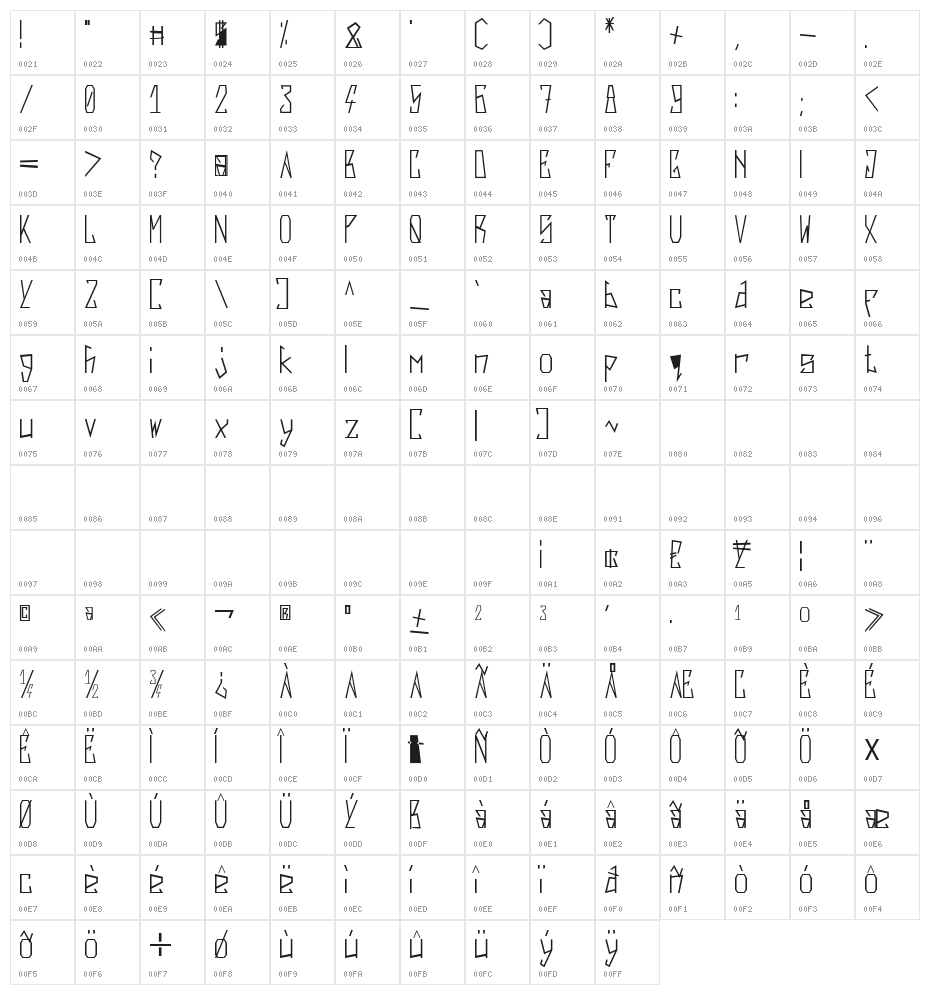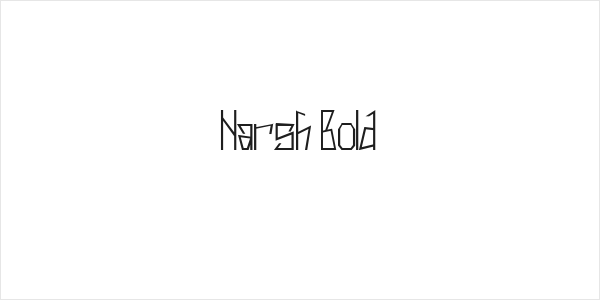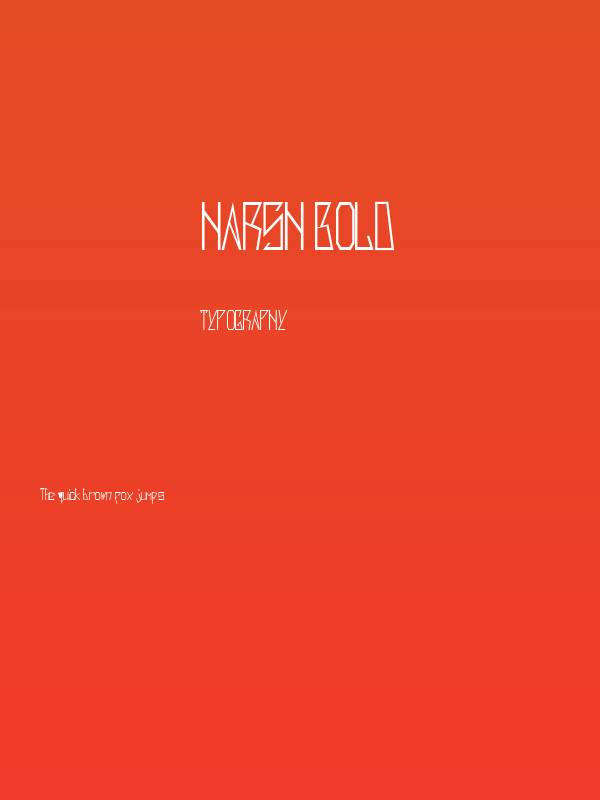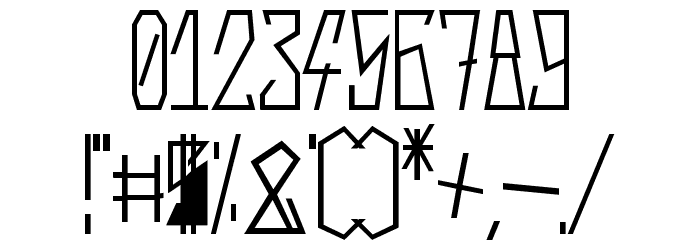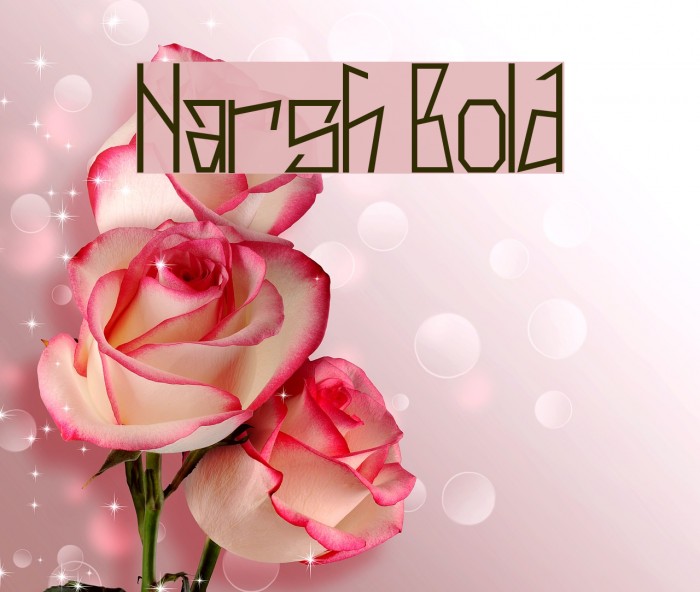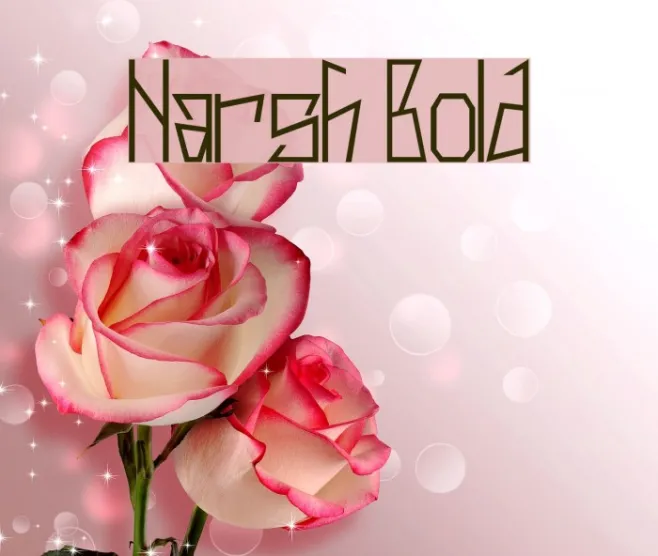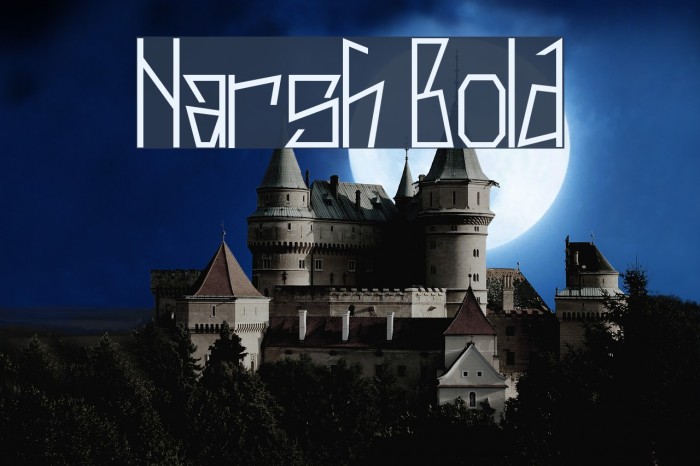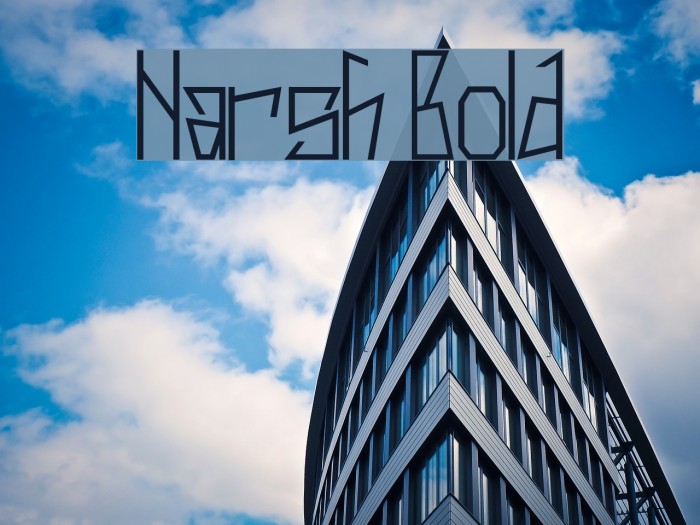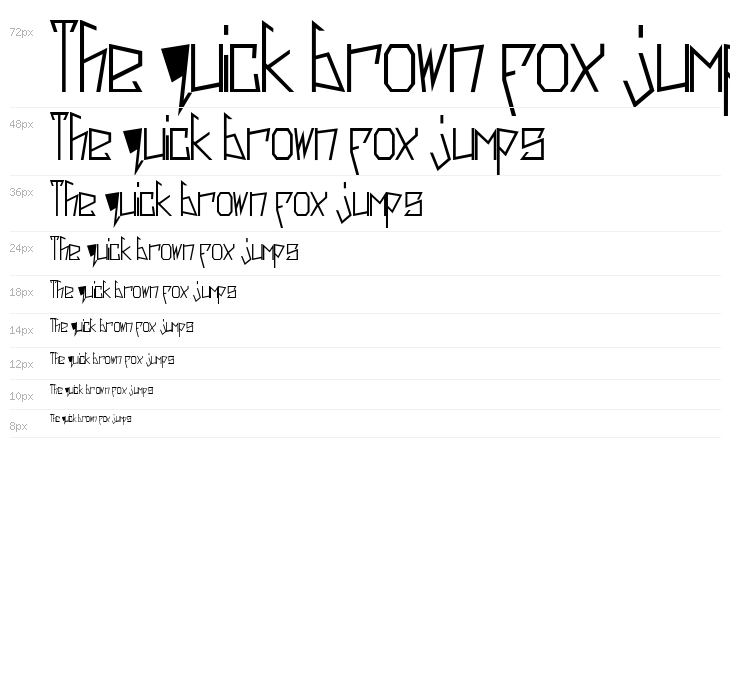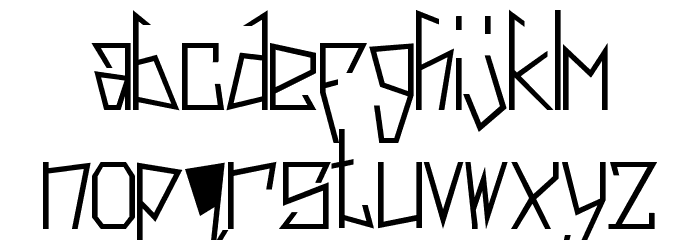
Harsh Bold Font
Harsh Bold Description
This font features a bold and angular design, characterized by sharp edges and geometric shapes. The uppercase letters are tall and narrow, with a distinct angularity that gives them a modern and edgy appearance. The lowercase letters maintain this angular style but are slightly more compact, providing a cohesive look across different cases. Numbers and special characters follow the same design principles, ensuring consistency throughout. The overall style is striking and unconventional, making it suitable for projects that require a bold statement.
| Proposed Projects | This font is perfect for branding, posters, album covers, and any project that requires a bold, modern aesthetic. |